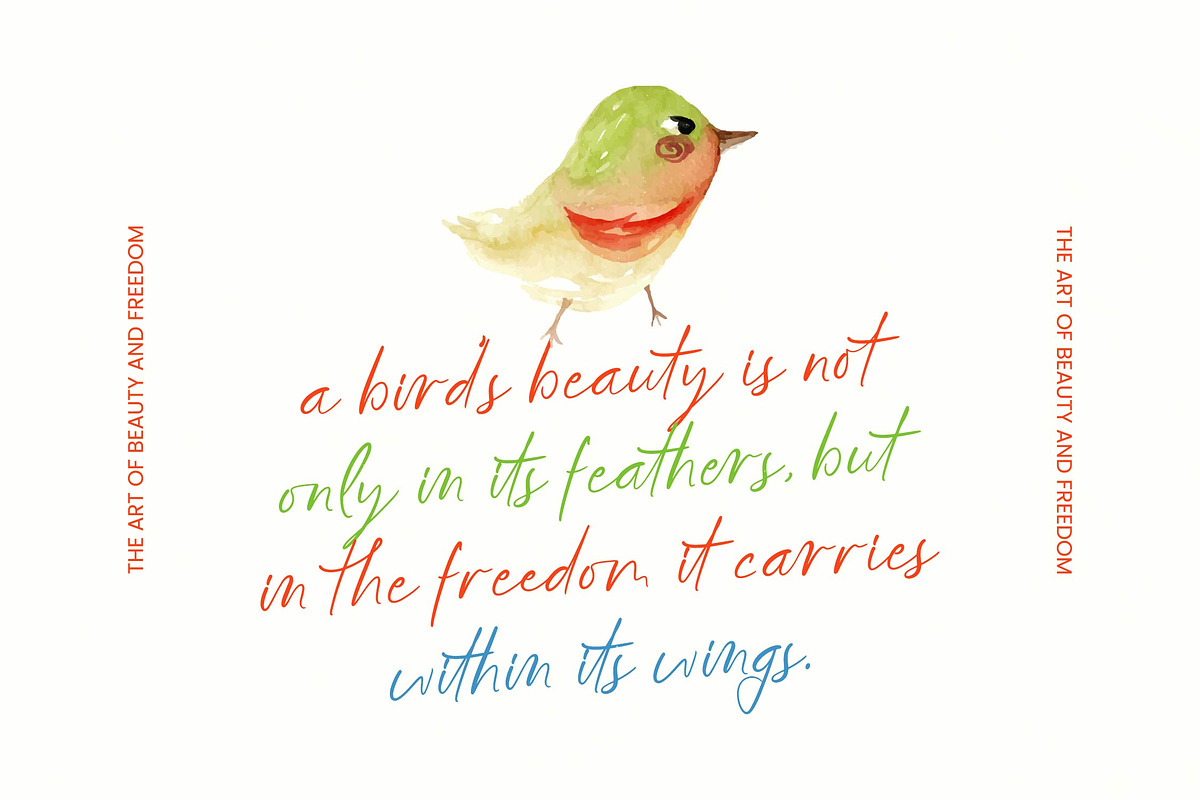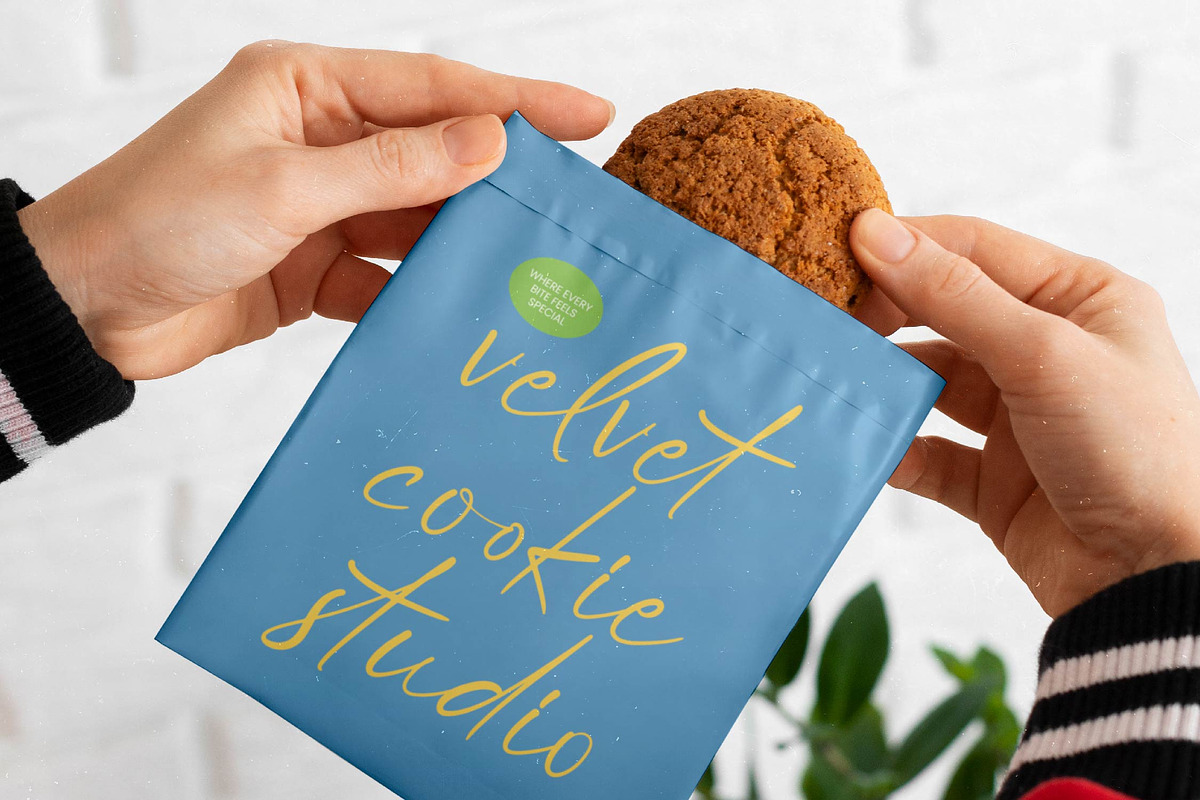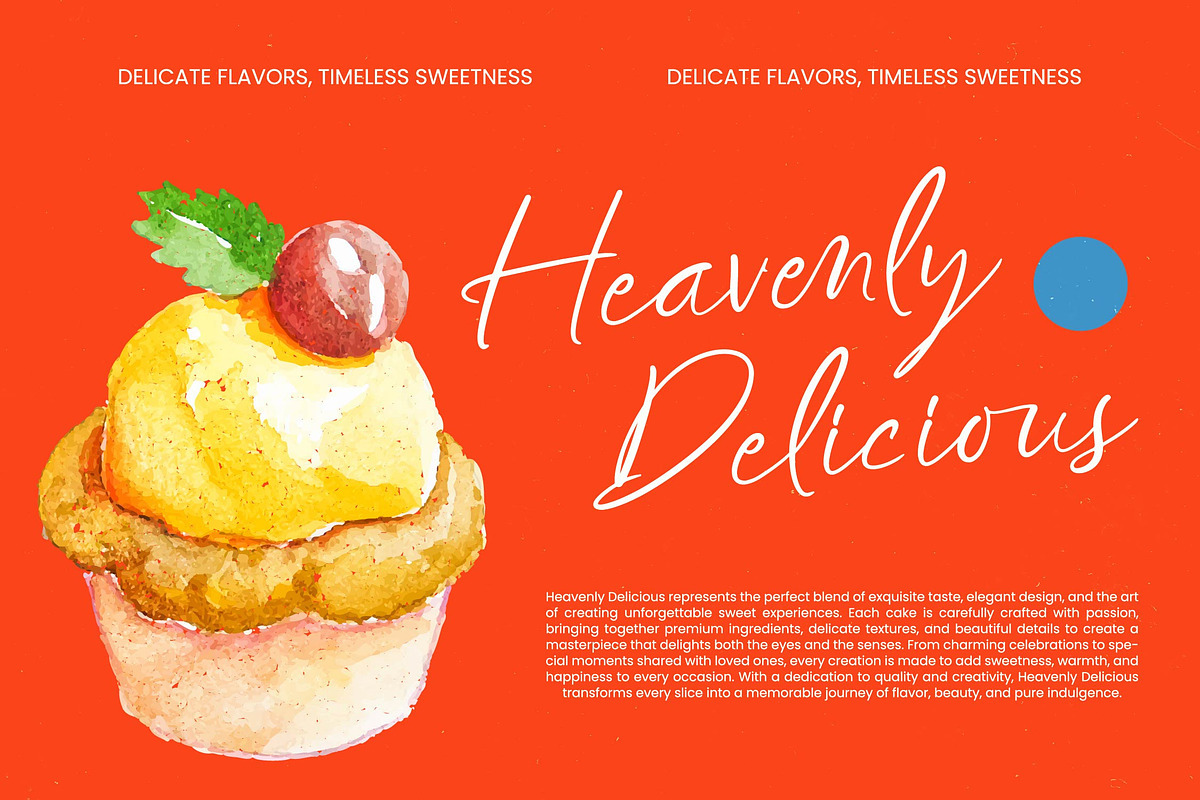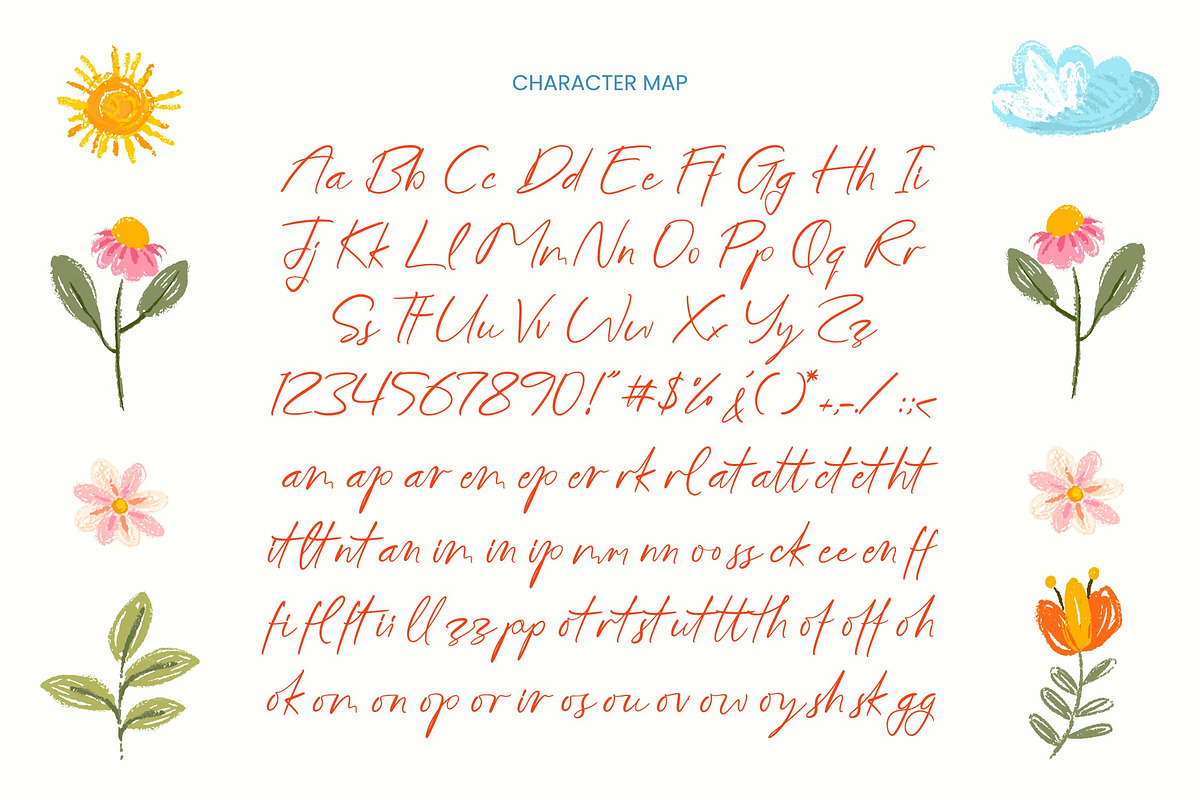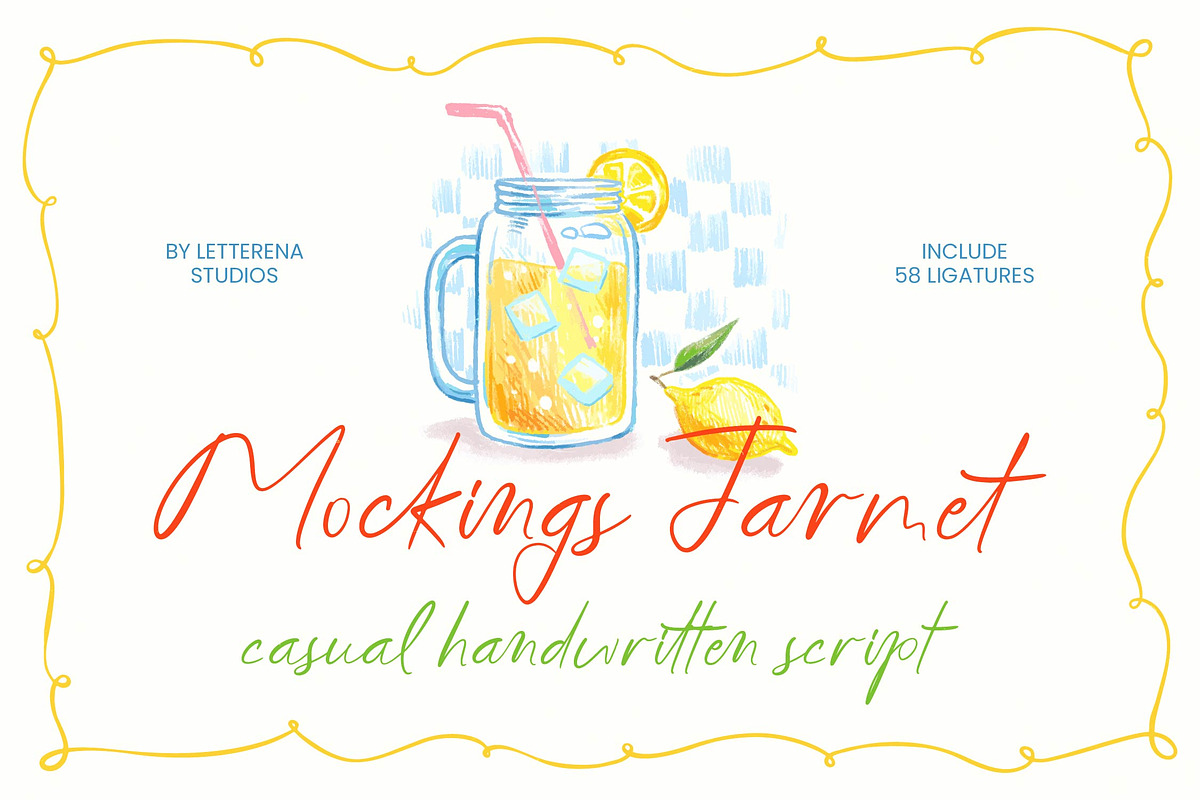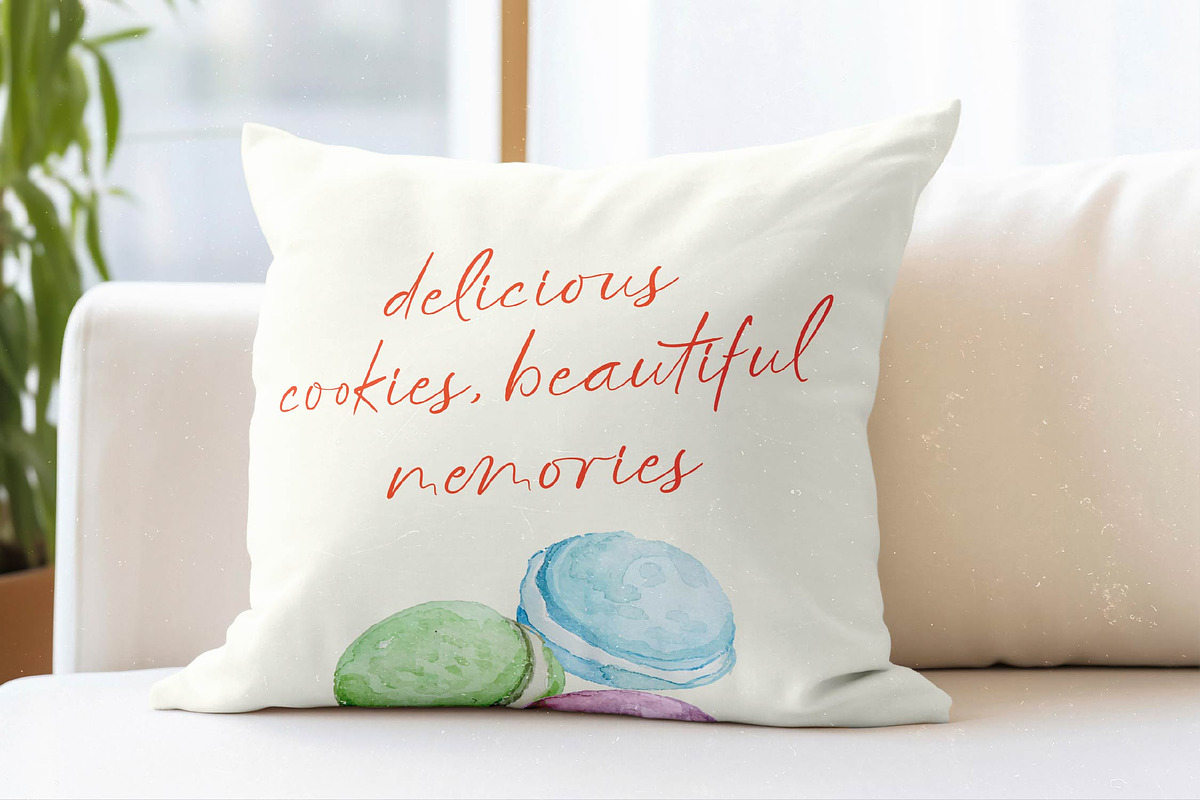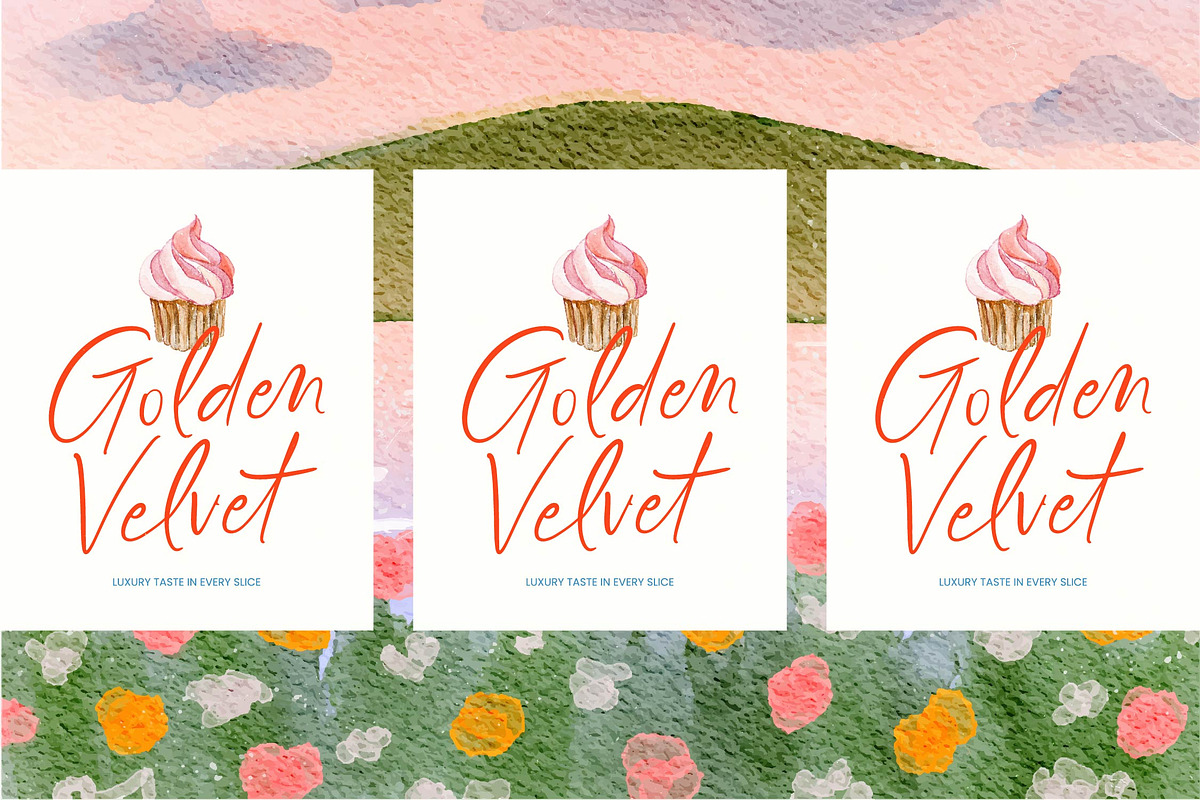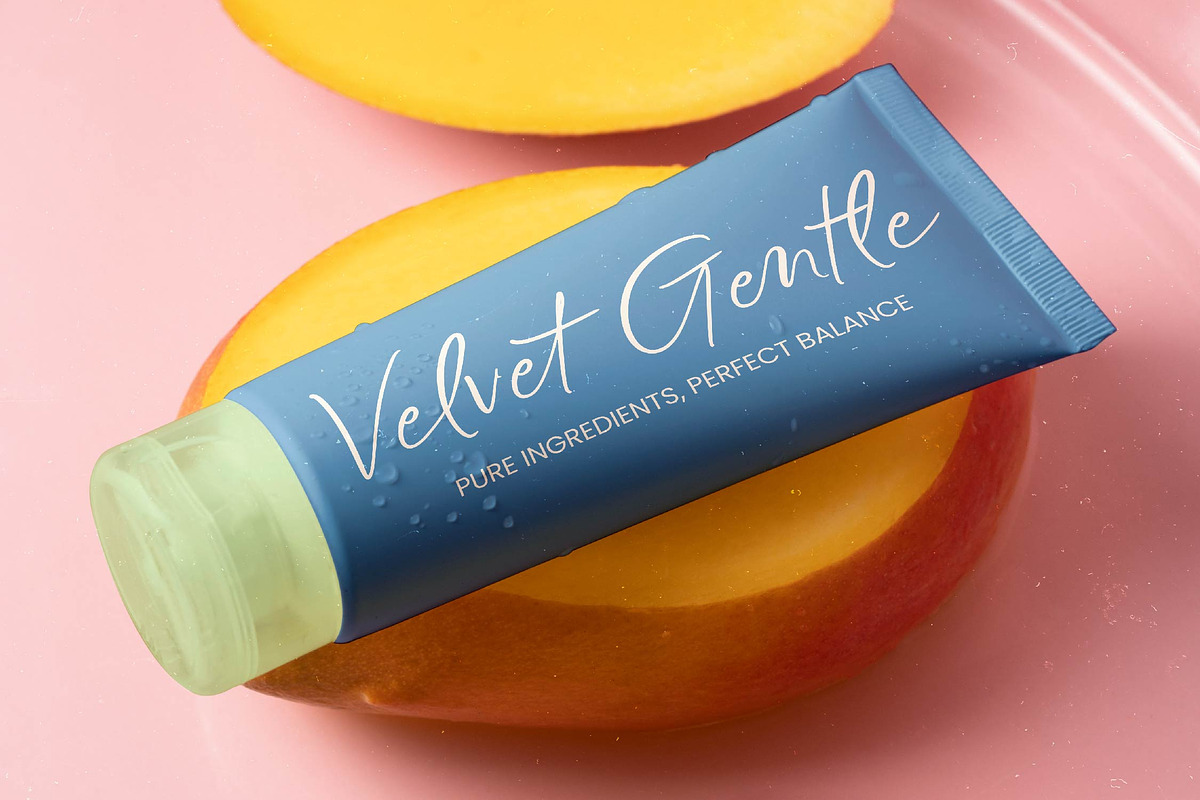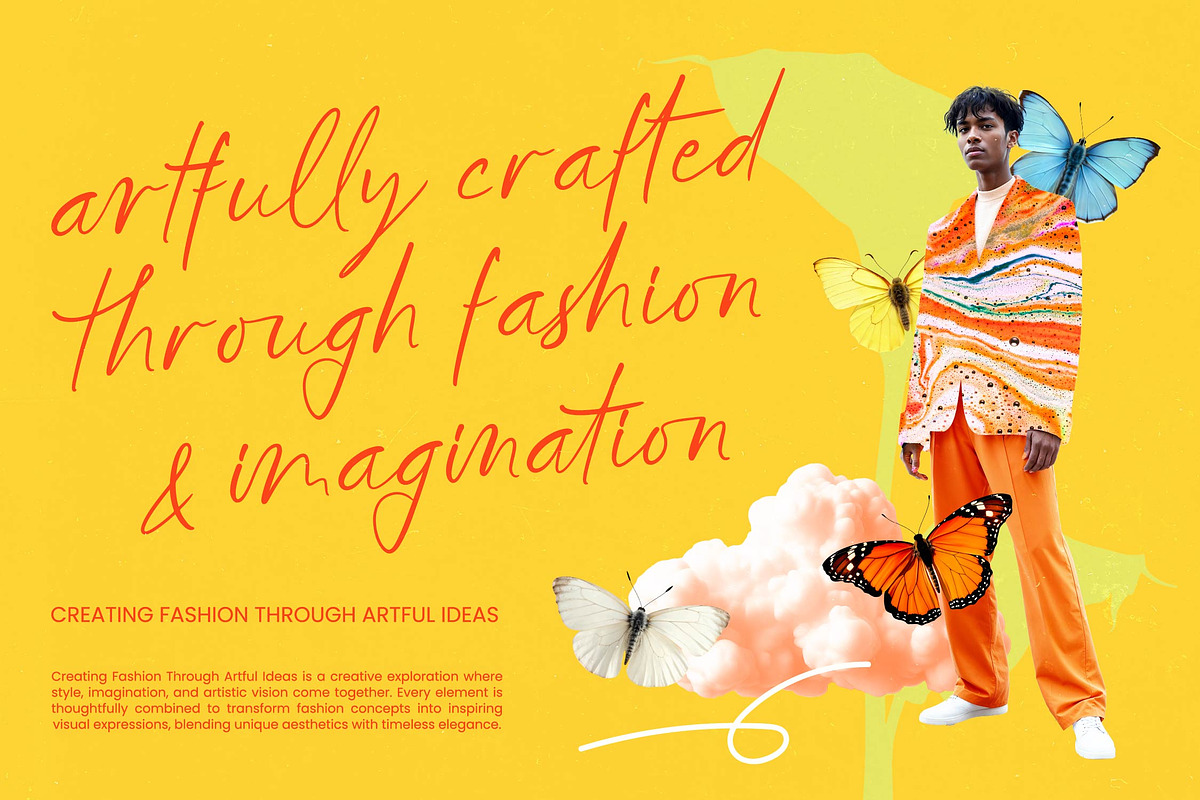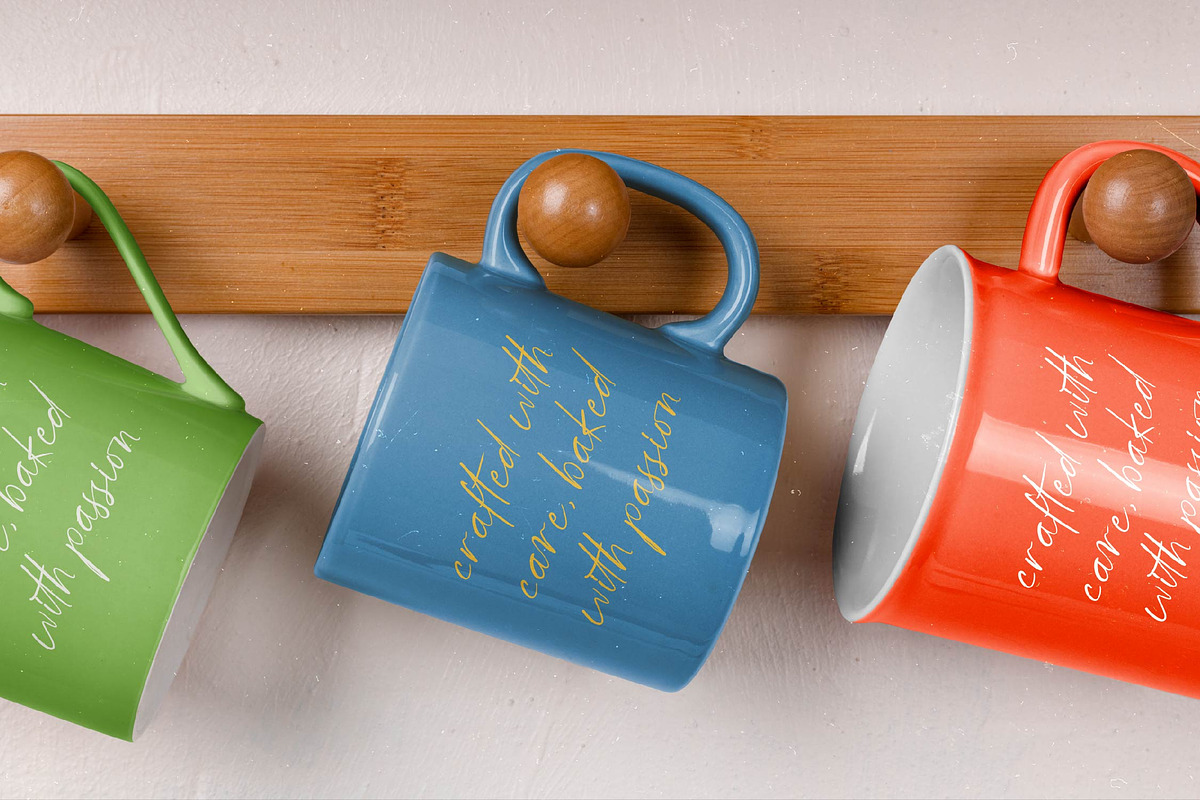
Mockings Jarmet Casual Handwritten
Mockings Jarmet - Casual Handwritten Script , Discover the effortless charm of organic design with a typeface that speaks to true authenticity. Mockings Jarmet - Casual Handwritten Script embodies a refined yet relaxed aesthetic, perfect for modern creators seeking a handcrafted typeface with a fluid rhythm. This font delivers an authentic pen-to-paper feel that instantly adds a human touch to any digital project, utilizing expressive ligatures to capture a sense of spontaneity that is both approachable and sophisticated.
Elevate your brand identity with unparalleled character and professional finesse. This font is the ideal application for luxury branding, social media graphics, and boutique packaging. Mockings Jarmet - Casual Handwritten Script is perfect for wedding invitations, logo design, and lifestyle editorial layouts where a personal connection is paramount. Its versatile letterforms ensure your message remains legible while maintaining a high-end artisanal vibe that resonates with discerning global audiences.
Expand your creative reach without technical limitations using a global-ready solution. With its extensive multilingual support, Mockings Jarmet - Casual Handwritten Script adapts seamlessly across global markets, making it incredibly versatile for international projects. This SEO-friendly typeface includes 58 custom ligatures, allowing for a truly unique and dynamic typographic composition. Its technical precision ensures smooth rendering across print and digital platforms, providing a consistent visual identity for high-stakes projects.
Transform your vision into a compelling visual narrative that commands attention. Choosing Mockings Jarmet - Casual Handwritten Script means investing in a premium design asset that balances raw style with modern functionality. Whether you are crafting inspirational quotes or innovative product labels, this elegant script font provides the aesthetic depth required to stand out in a crowded marketplace. Secure Mockings Jarmet - Casual Handwritten Script today to bring an authentic, stylish flair to your next professional masterpiece.